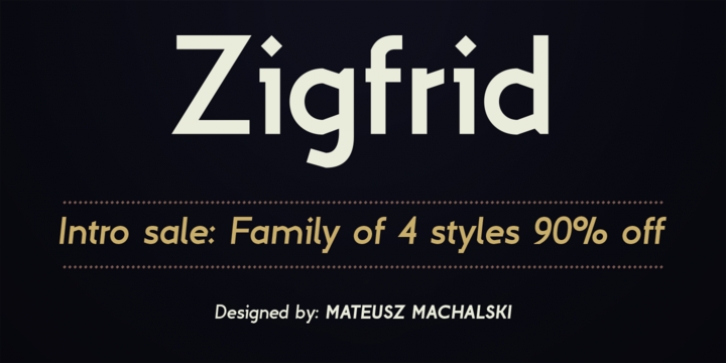
Zigfrid downloadDesigner: Mateusz Machalski
Publisher: Borutta
The Zigfrid_family was made after my visit to Deutschland and its huge impression of old typography on the streets of Berlin. Zigfrid contains 4 different styles with a geometric and modern feel.